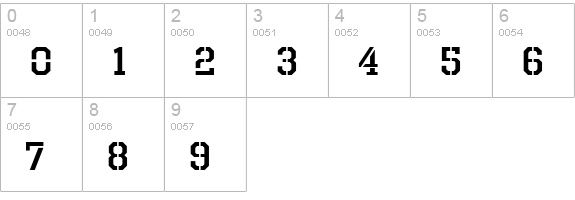
Octin Prison Sb Font Details
Octin Prison Sb font is a bold and commanding typeface that exudes strength and authority. With its sharp edges and imposing presence, this font is perfect for making a statement in your designs. Its rugged and industrial aesthetic gives off a sense of confinement and power, making it ideal for projects that require a strong and impactful visual impact. The Octin Prison Sb font is designed to stand out and grab attention, making it a great choice for headlines, titles, and branding materials. Its bold strokes and sturdy construction make it easy to read and eye-catching, ensuring that your message gets noticed. Best of all, Octin Prison Sb font is completely free to download at FontsMarket.com. Whether you're working on a personal project or a professional design, this font is readily available for you to use without any cost. So go ahead and give your designs a powerful edge with Octin Prison Sb font today!